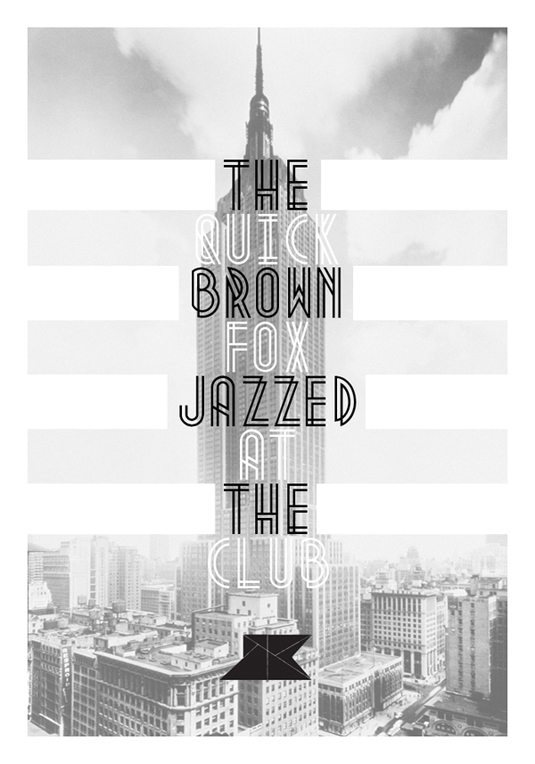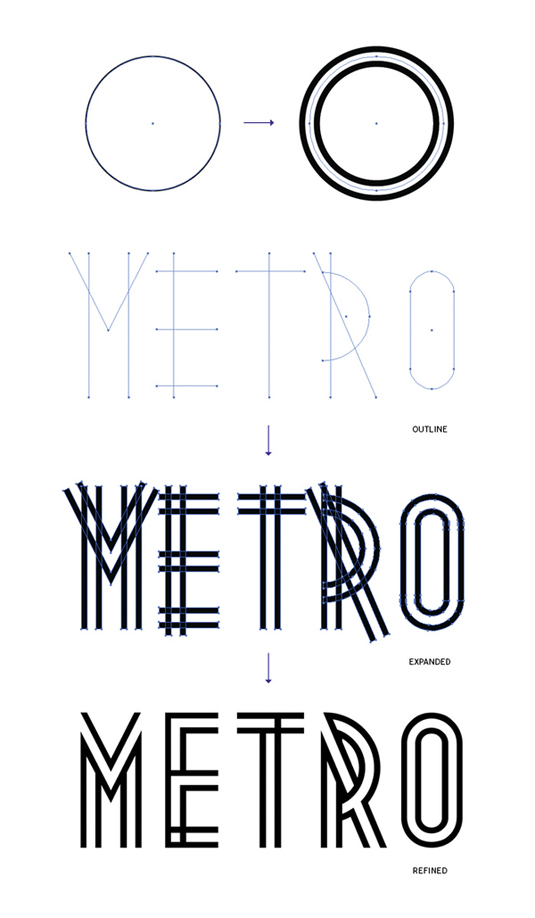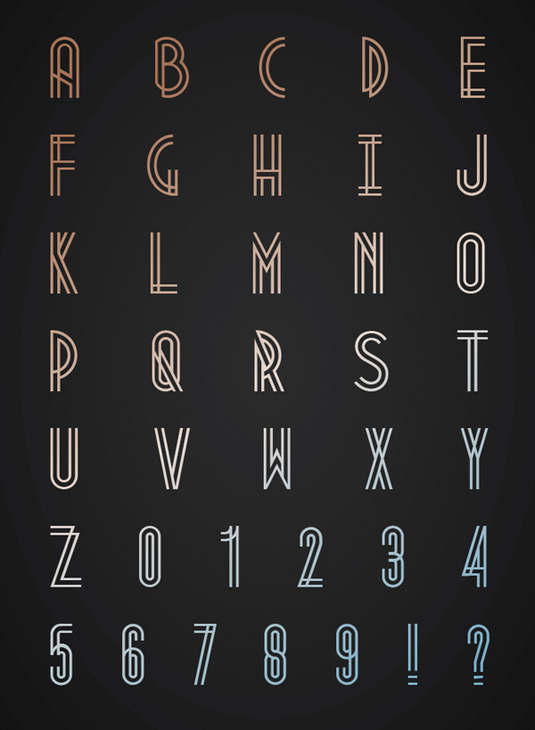
Greatest fonts countdown: 96 - Metropolis
96. Metropolis
- Josip Kelava, 2012
Croatia-born, Melbourne-based graphic designer and art director Josip Kelava designed Metropolis in 2012. His aim was to have the display face 'coming from the industrial movement of the 1920s where skyscrapers where born'.
"Using a double-line technique, I wanted to create my own Art Deco-style font that represented this era. The result is a bold, bumptious typeface with a stolidly calm disposition," he says. The designer was recognised for his talent when he won an ADC Young Guns award in 2013. You can download Metropolis for free.